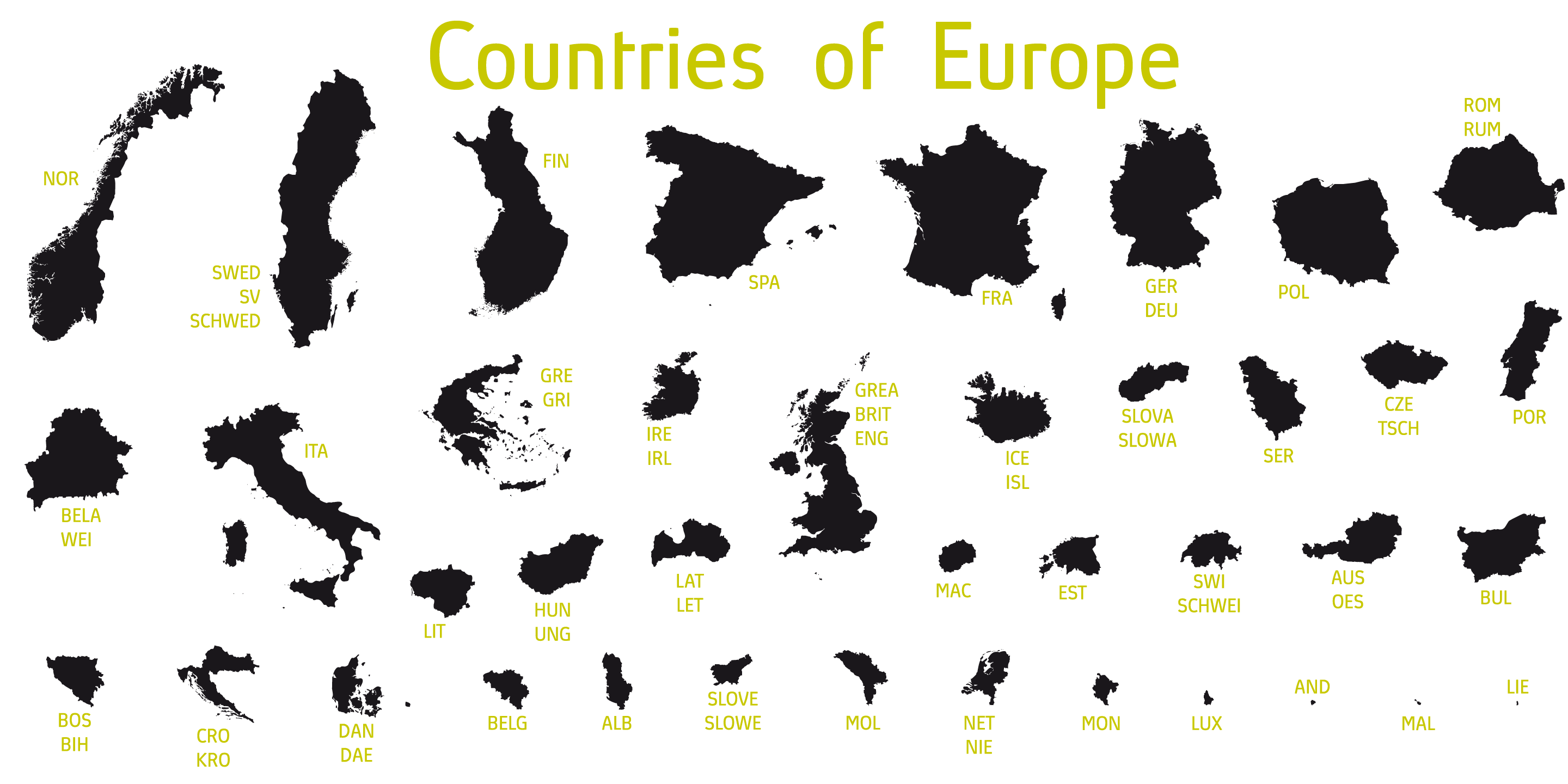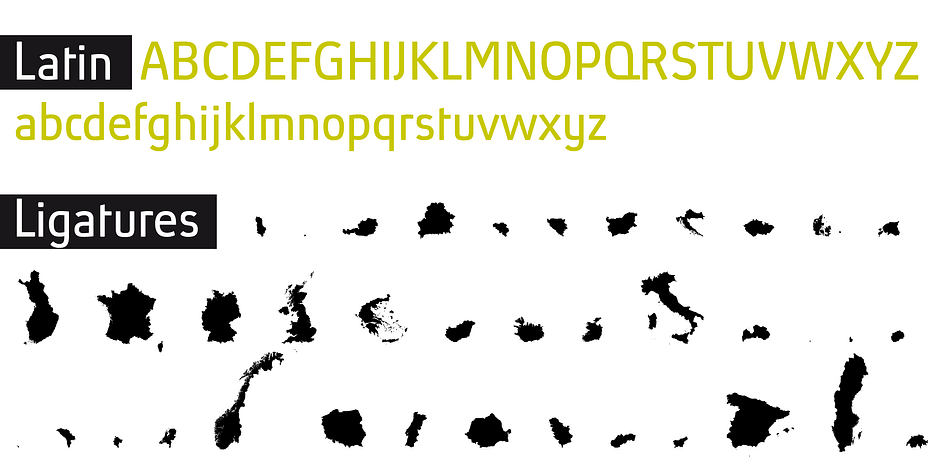
Countries Of Europe
Designed by Ingo Zimmerman, Countries Of Europe is a dingbat font published by ingoFonts.
The Europe font: the European countries
It simply uses the new OpenType-Technique for fonts in order to specifically place the outline of a country on the monitor.
The Europe font: the European countries’ shapes united in one font
This typeface is no typeface at all. It simply uses the new OpenType-Technique for fonts in order to specifically place the outline of a country on the monitor. The font is made up of the upper and lower case alphabet, A to Z and a to z.
And here are true-to-scale silhouettes from 39 European nations.
Just type the first letters of the name of the country and immediately the country appears – for example »ir« for Ireland or »SWED« for Sweden.
The font includes the following nations: Albania, Andorra, Austria, Belarus, Belgium, Bosnia and Herzegovina, Bulgaria, Croatia, Czech Republic, Denmark, Estonia, Finland, France, Germany, Great Britain, Greece, Hungary, Iceland, Ireland, Italy, Latvia, Liechtenstein, Lithuania, Luxembourg, Macedonia, Malta, Moldova, Montenegro, Netherlands, Norway, Poland, Portugal, Romania, Serbia, Slovakia, Slovenia, Spain, Sweden and Switzerland.